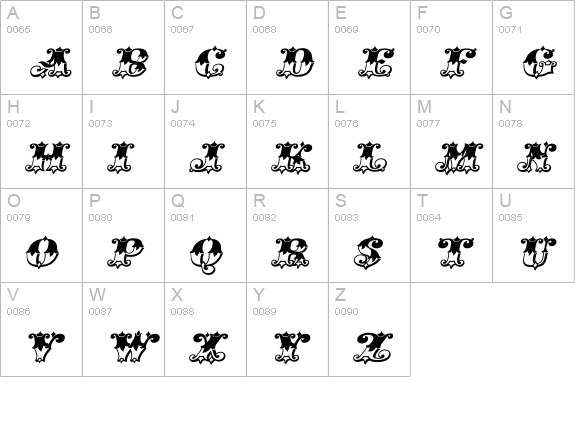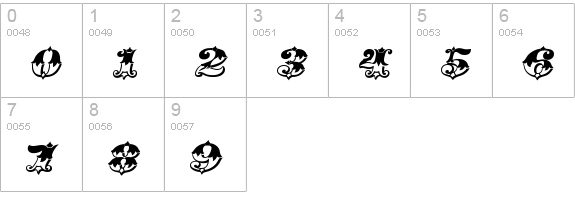
Gold Std Italic Fill is a distinctive, italic variant in the Gold typeface family \xE2\x80\x94 well suited to design and typography projects.
Gold Std Italic Fill font is a luxurious and elegant typeface that exudes sophistication and charm. With its intricate detailing and ornate design, this font is perfect for adding a touch of opulence to your projects. The italic style adds a dynamic and modern twist to the classic gold standard aesthetic. What makes Gold Std Italic Fill font even more appealing is that it is available for free download at FontsMarket.com. This means you can easily access and use this stunning font in your designs without any cost. Whether you're working on branding, invitations, or any other creative project, Gold Std Italic Fill font is sure to elevate your work and leave a lasting impression. Download it now and add a touch of luxury to your typography!